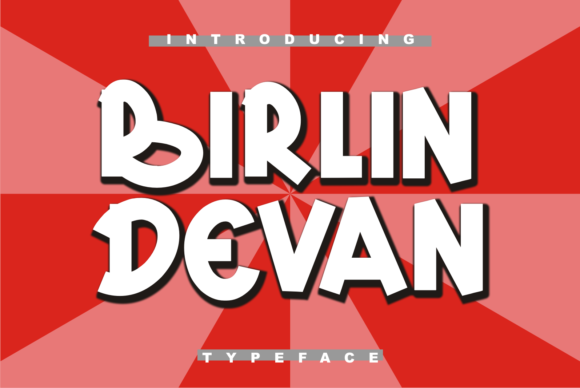
The Designer’s Delight: Birlin Devan Font
I’ll never forget the time I was working on a project for a trendy boutique hotel, and I just couldn’t find the right font to capture their edgy-chic vibe. The client wanted something bold, yet simple; attention-grabbing, yet elegant. I scoured the internet, tried out dozens of fonts, but nothing seemed quite right. That was until I stumbled upon the Birlin Devan font. ✨
It was love at first sight! The thick-lettered and cool display font instantly caught my attention, and I knew I had found the perfect fit for my project. In this article, I’ll share with you why I’m obsessed with Birlin Devan, its features, and how to make the most of it in your designs.
- ✨ Strong Visual Impact: Birlin Devan has a bold and eye-catching presence that instantly elevates your designs.
- ✅ Simple yet Effective: The font’s simplicity is its greatest strength, making it versatile and easy to pair with other fonts.
- 💡 OpenType Features: Birlin Devan comes with a range of OpenType features, including glyphs and stylistic alternates, giving you plenty of creative options.
While Birlin Devan is an amazing font, there are a few things to keep in mind:
- 🤔 Limited Use Cases: Due to its bold nature, Birlin Devan works best as a display font or for short headings. It may not be the best choice for body text.
- ⚠️ Legibility at Small Sizes: As with many bold fonts, Birlin Devan may lose legibility at very small sizes. Make sure to test it at different sizes to ensure it works for your design.
The Story Behind Birlin Devan
Birlin Devan was designed by a talented type designer who aimed to create a font that would make a statement. With its bold, thick letters, Birlin Devan is perfect for designers who want to add a touch of coolness to their creations. The font’s simplicity and strong visual impact make it an excellent choice for display text, headings, and titles.
Q: What is Birlin Devan font best used for?
A: Birlin Devan is best used for display text, headings, and titles where a strong visual impact is desired. Its bold nature makes it perfect for designs that require attention-grabbing text.
Q: Can I use Birlin Devan for body text?
A: While Birlin Devan can be used for short paragraphs, it’s not recommended for lengthy body text due to its bold nature. It’s best suited for headings and titles.
Q: Does Birlin Devan support OpenType features?
A: Yes, Birlin Devan comes with a range of OpenType features, including glyphs and stylistic alternates, which can be accessed in compatible design software.
Q: Is Birlin Devan suitable for digital designs?
A: Absolutely! Birlin Devan works well in digital designs, including websites, social media graphics, and presentations. Its bold and clear nature ensures it remains legible even at smaller sizes.